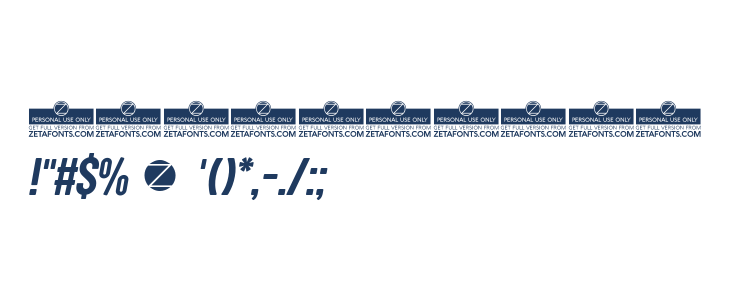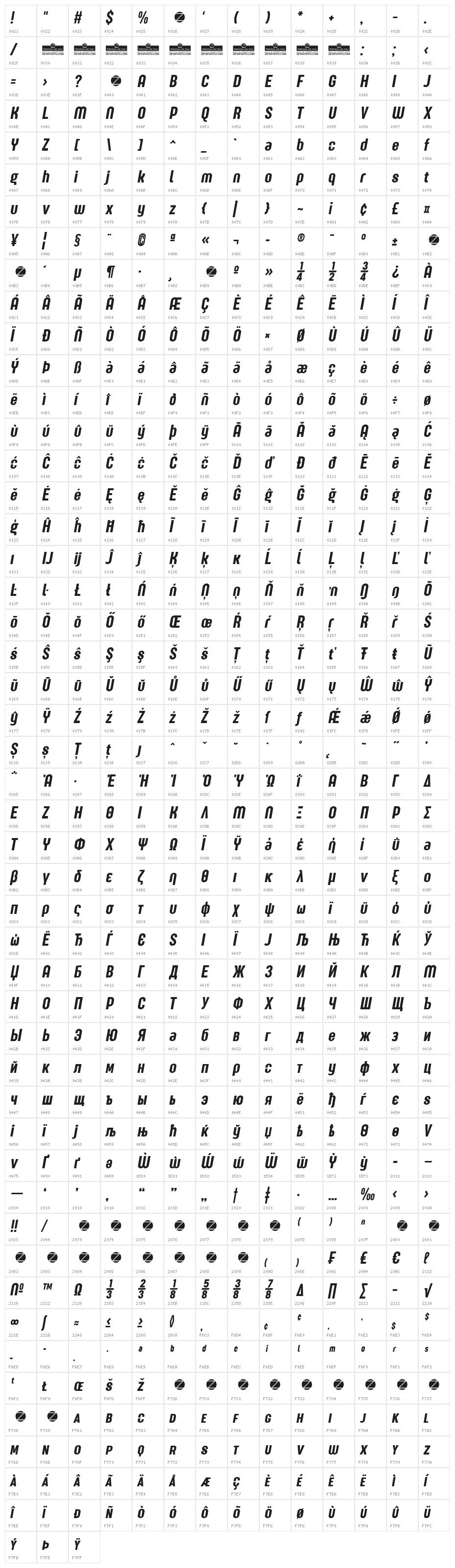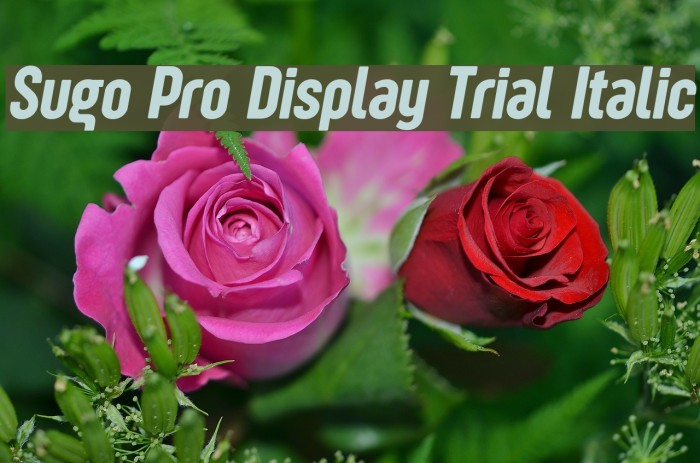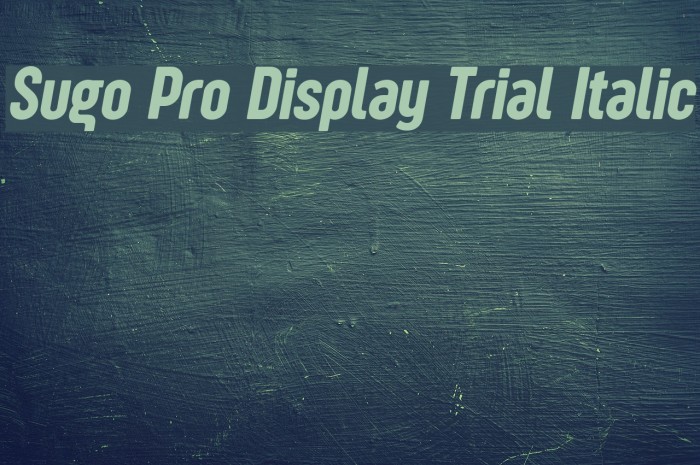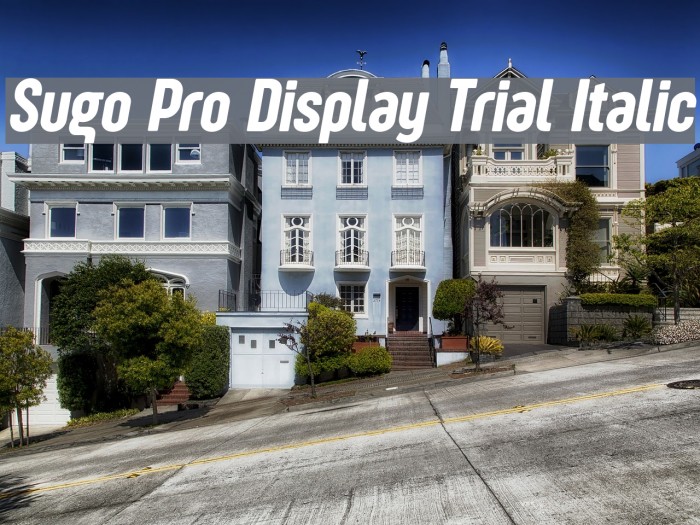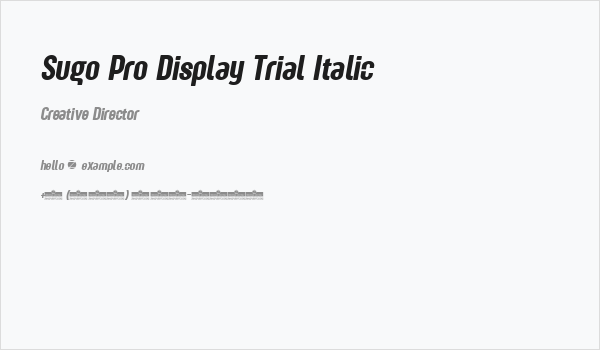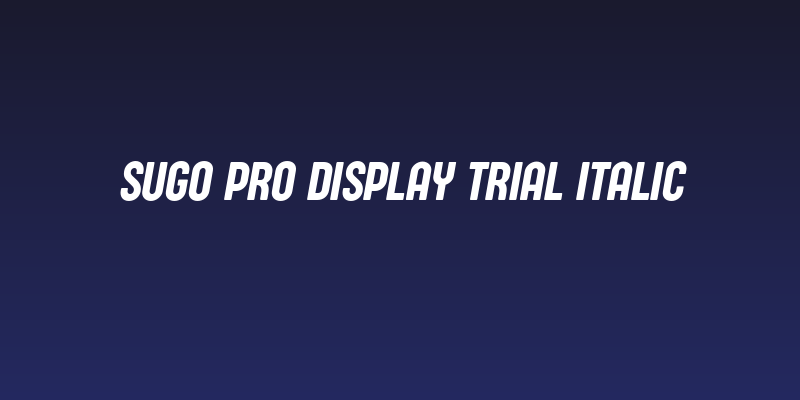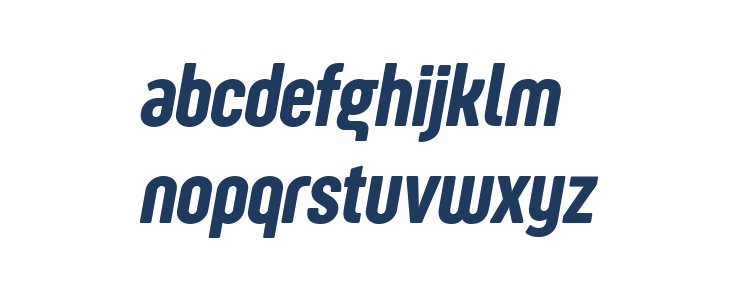
Sugo Pro Display Trial Italic Font
Sugo Pro Display Trial Italic Description
This font features a bold and modern design with a distinct italic slant, giving it a dynamic and forward-moving appearance. The characters are well-defined with smooth curves and a consistent stroke width, making it highly legible. The uppercase and lowercase letters maintain a cohesive style, while the numerals and special characters complement the overall design. The font's boldness and slight curvature lend it a contemporary and energetic feel, suitable for various design applications.
| Use Case | Headlines, Logos, Advertising |
| Proposed Projects | Ideal for branding, advertising, headlines, and digital media projects that require a modern and dynamic look. |